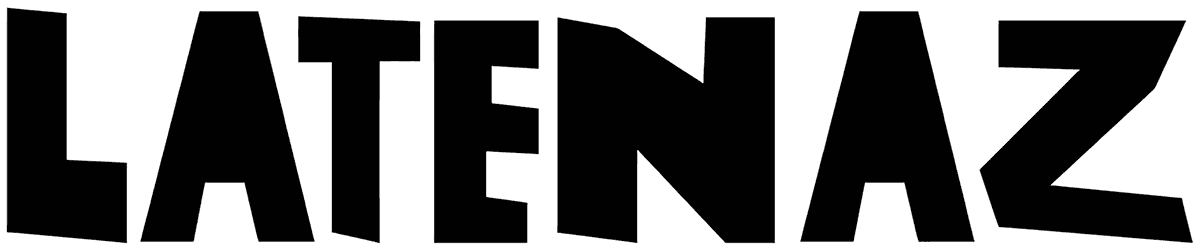
Latenaz Font
Latenaz is a cut out font that comes with a geometrical and chunky style, thus carrying a vibe of smudginess, uniqueness, dynamism, or exotic. If you really want your editorial projects to look totally distinct and shiny…
Latenaz is a cut out font that comes with a geometrical and chunky style, thus carrying a vibe of smudginess, uniqueness, dynamism, or exotic. If you really want your editorial projects to look totally distinct and shiny alongside their counterparts, then you should definitely utilize this masterpiece in all of your projects.